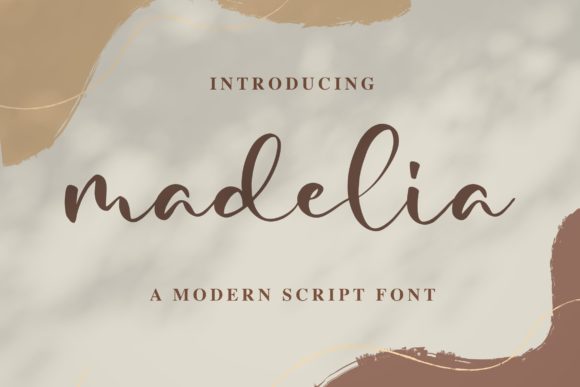
Indulge in the ethereal beauty of Madelia Font, where elegance and grace intertwine. Crafted with a keen eye for detail by Blankids Studio, this script font exudes an air of sophistication that will captivate your audience.
Madelia's delicate strokes and flowing lines evoke the romance of handwritten love letters, making it the perfect choice for wedding invitations that will be cherished for years to come. Its varying baseline and smooth transitions create a dynamic visual effect, while the gorgeous glyphs and stunning alternates add a touch of whimsy and charm.
Whether you're designing wedding thank-you cards, heartfelt quotes, or elegant logos, Madelia's versatility knows no bounds. It brings an exquisite handwritten touch to every project, adding a layer of warmth and intimacy. Experience the transformative power of Madelia Font and elevate your designs to new heights of sophistication and beauty.